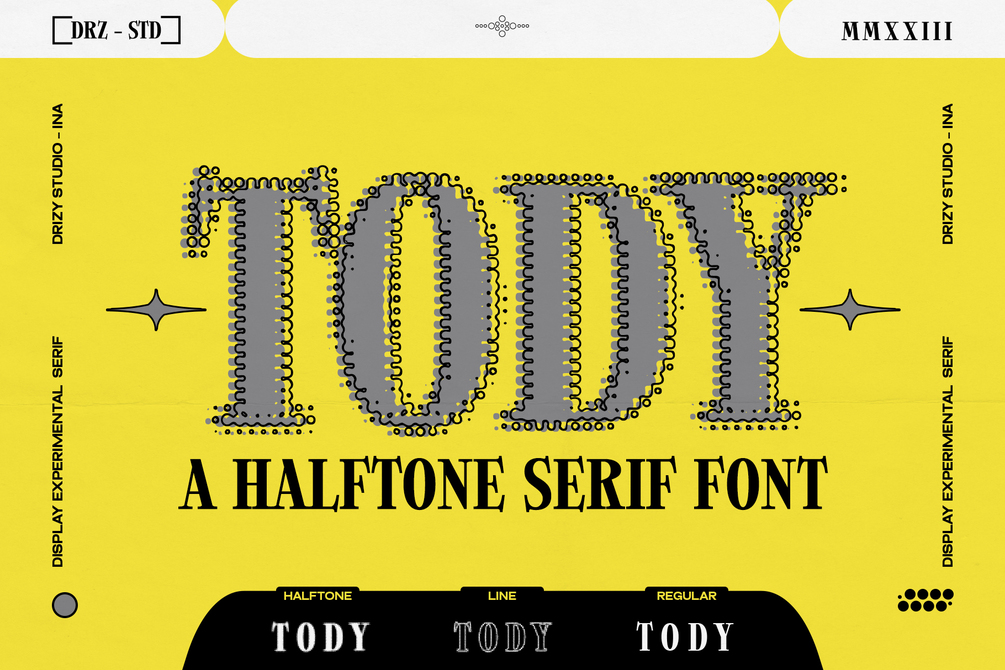
Tody – Halftone Serif Font
Refined, sophisticated, and effortlessly stylish Tody – Halftone Serif Font that brings a perfect balance of classic elegance and modern versatility. Designed with precision and attention to detail, Tody features delicate yet strong serifs, creating a font that feels both timeless and contemporary. What sets Tody apart is its Halftone design, a distinctive blend of smooth curves and structured serifs. This combination allows it to exude grace and sophistication while maintaining a strong visual presence. Whether you’re designing a high-fashion brand, a stylish magazine layout, or an elegant wedding invitation, Tody adds just the right amount of grace and character. Let your designs shine with the refined beauty of this Halftone Serif masterpiece!